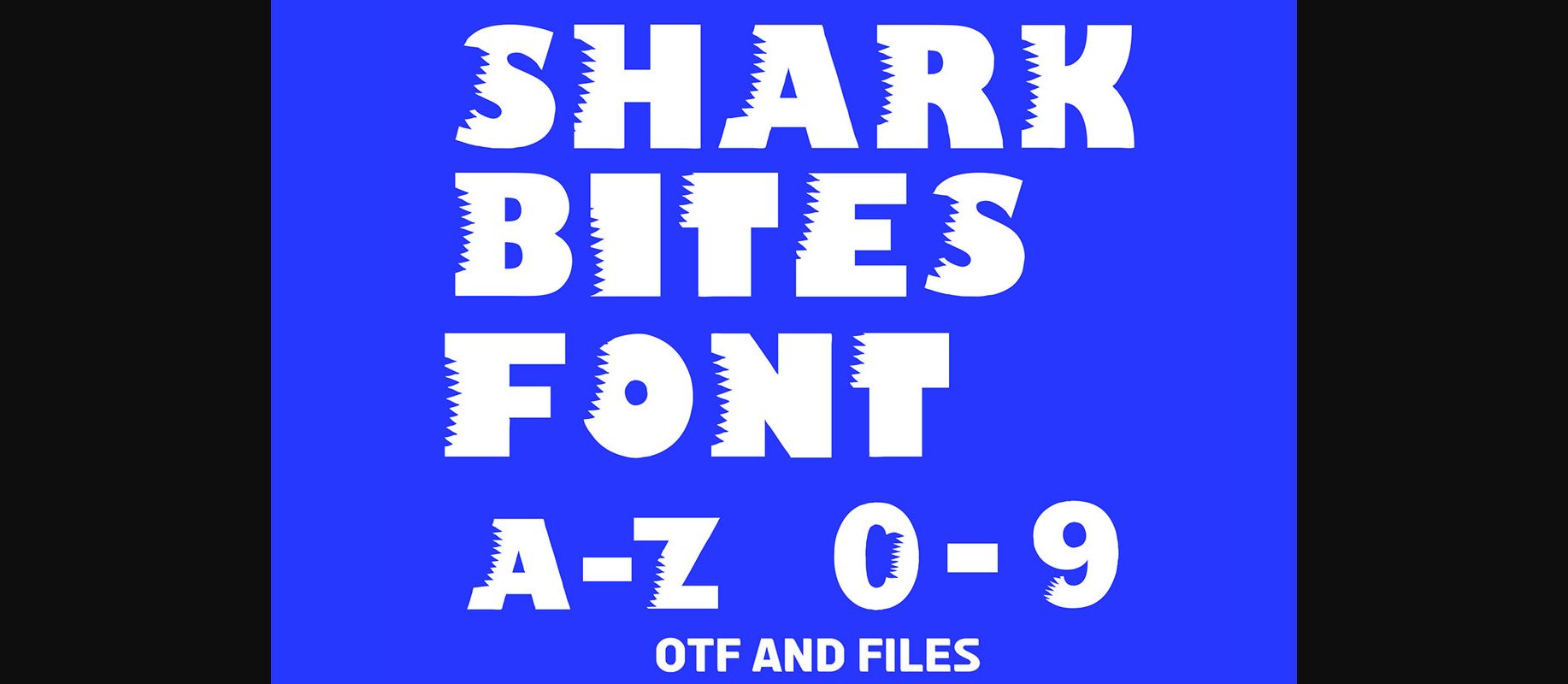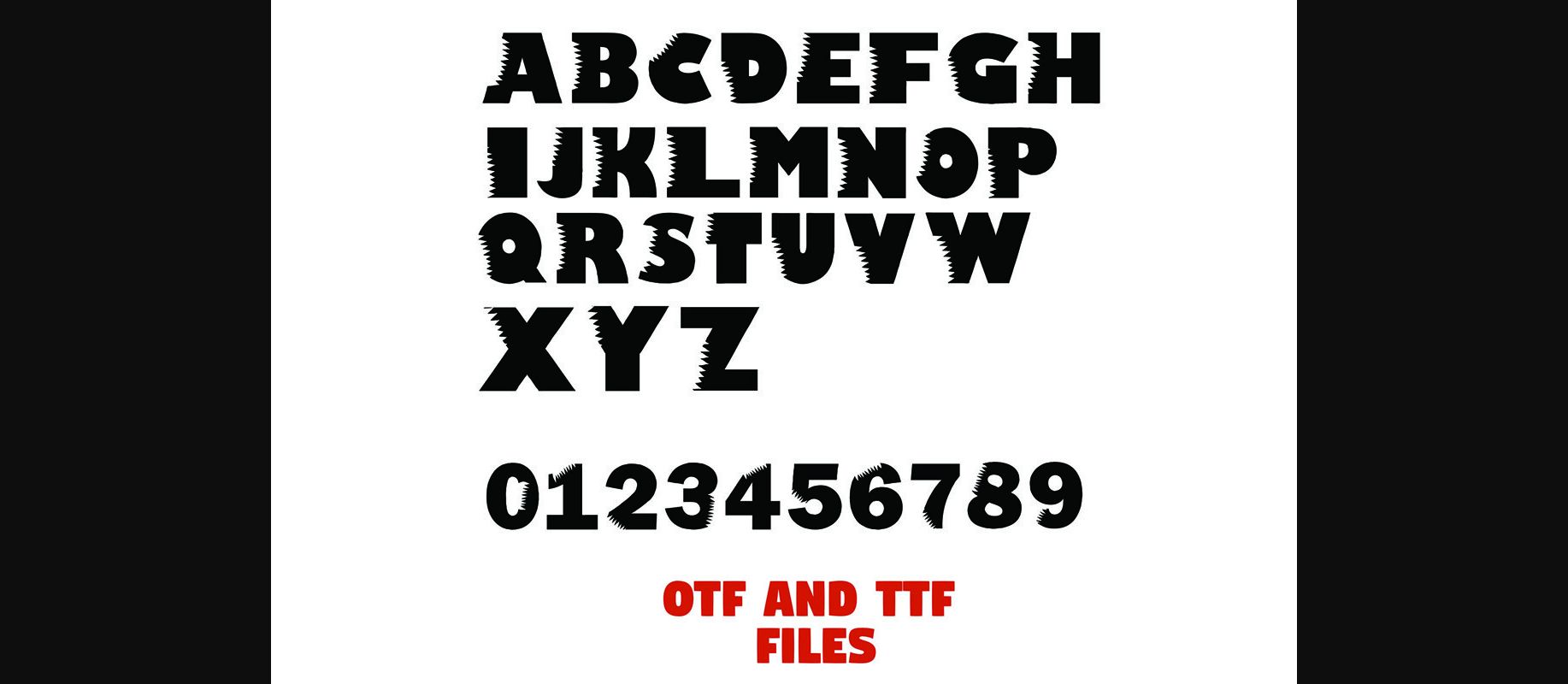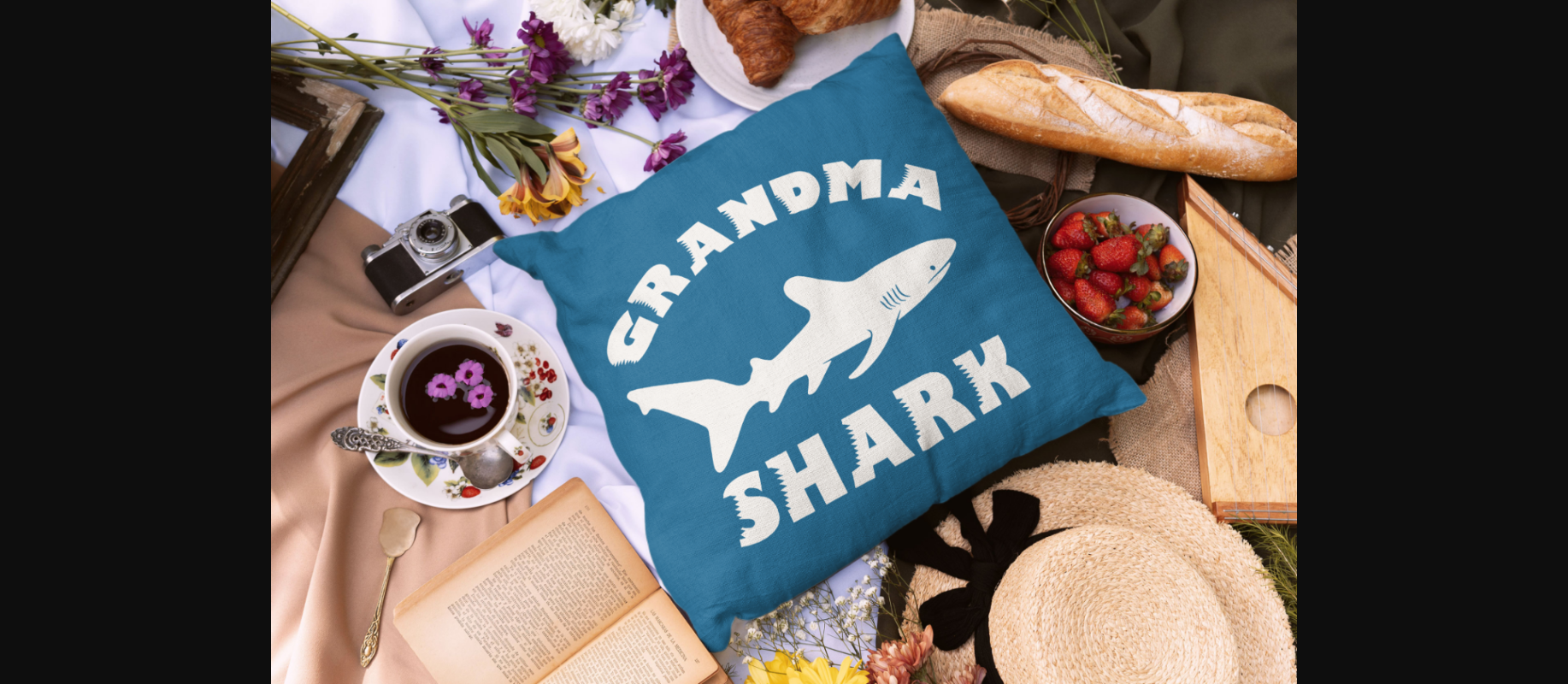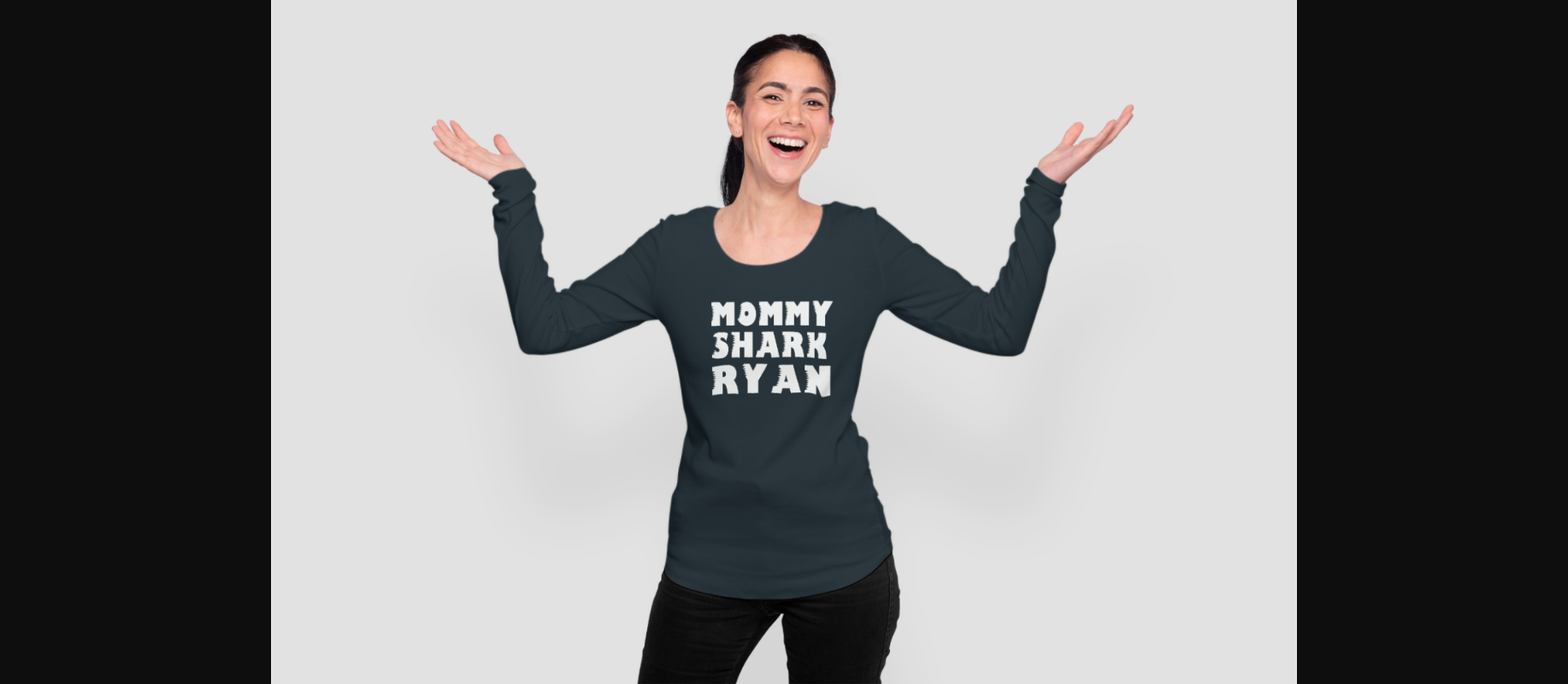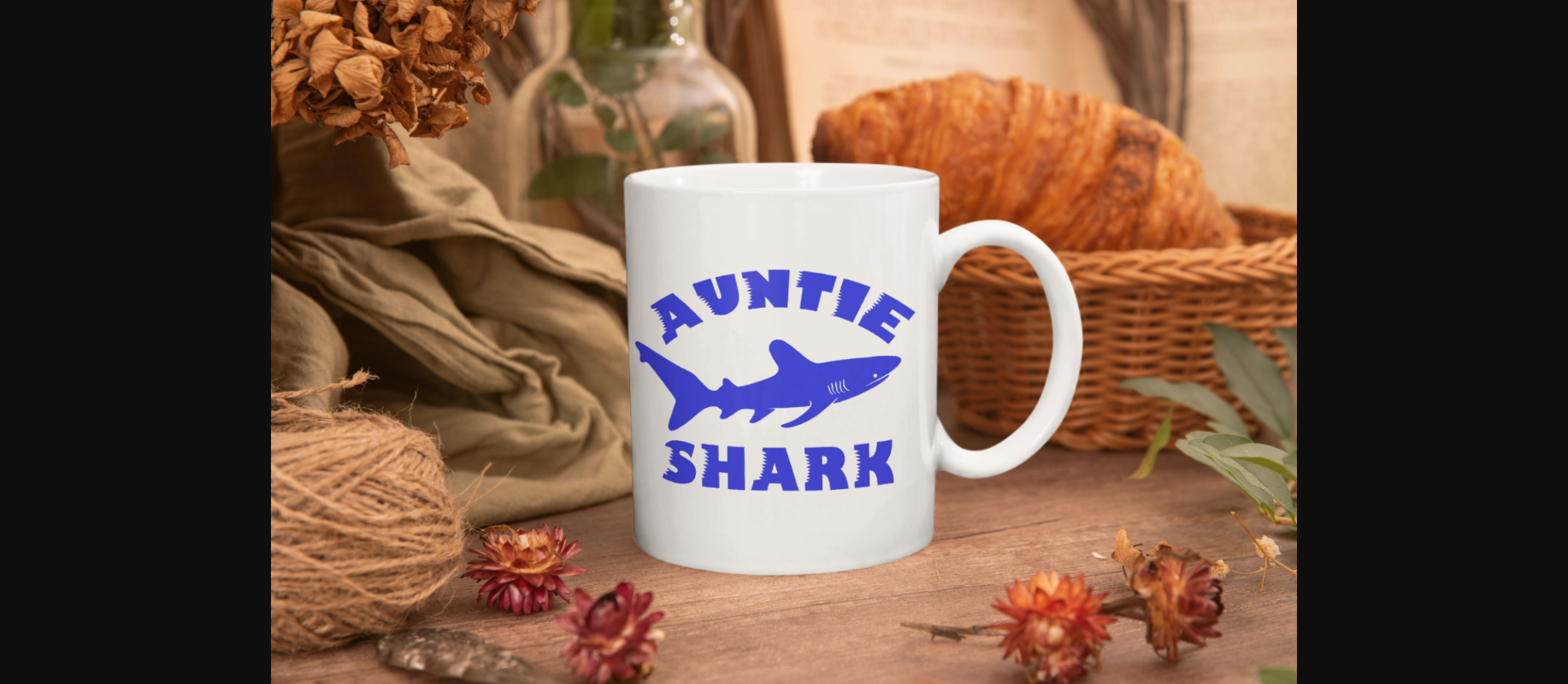
Shark Bites Font
About Shark Bites Font
Dive into the deep waters of creativity with Shark Bite, an exclusive Alphabet and Numbers Font. This unique typeface is a perfect blend of sharp, edgy design and a sleek, modern touch, making it a must-have for a wide range of design projects.
Features
Striking shark bite effect for an eye-catching design, clean, crisp lines for readability and professionalism.
Highly versatile for digital and print applications.
Ideal for logos, posters, merchandise, and more
? Elevate your projects with the fierce elegance of Shark Bite Pro. Whether you’re designing a logo for a marine adventure company, crafting a daring poster, or adding an aquatic touch to your products, this font will give your work the bite it needs to stand out.